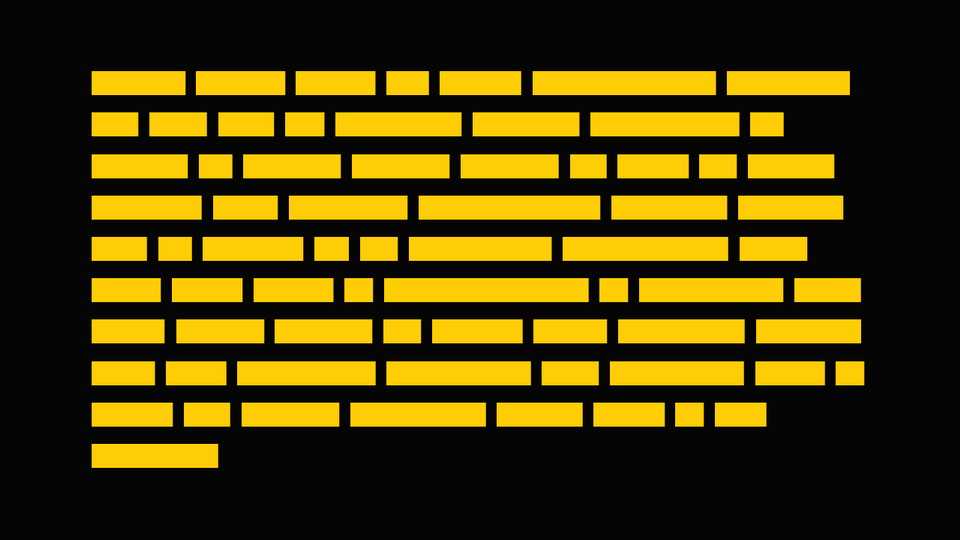
Download Dummy Text font, a filler text typeface designed for mockups and wireframes. Dummy Text font is very useful in graphic design, web and UI, and publishing.